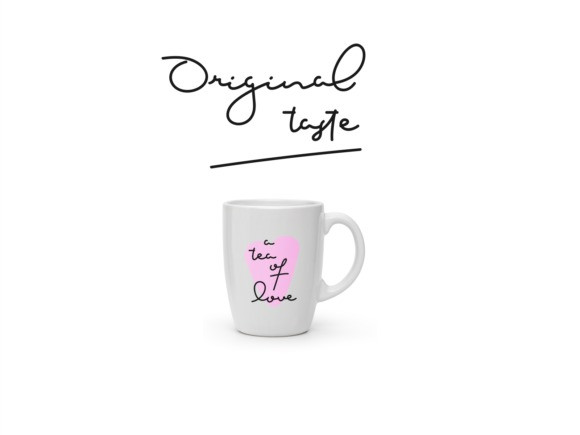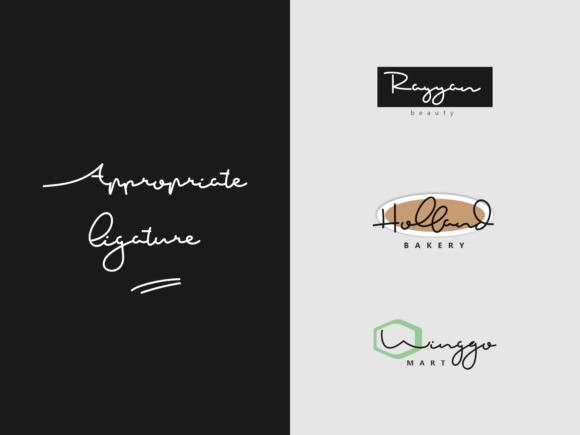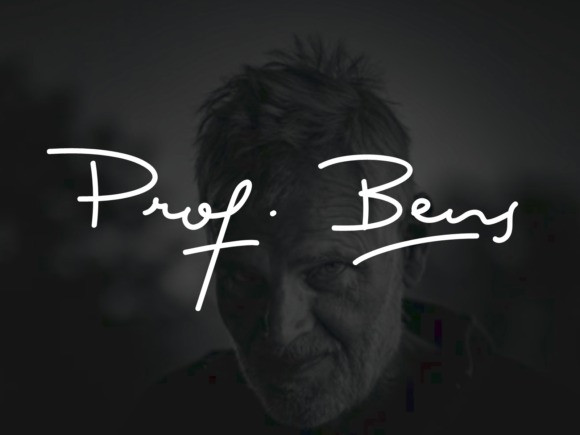
Briquete Script Font
Briquete is a modern and flowing handwritten font. This font is perfect for branding projects, wedding designs, advertisements, product packaging, product designs, label, photography, invitation, quotes, etc.